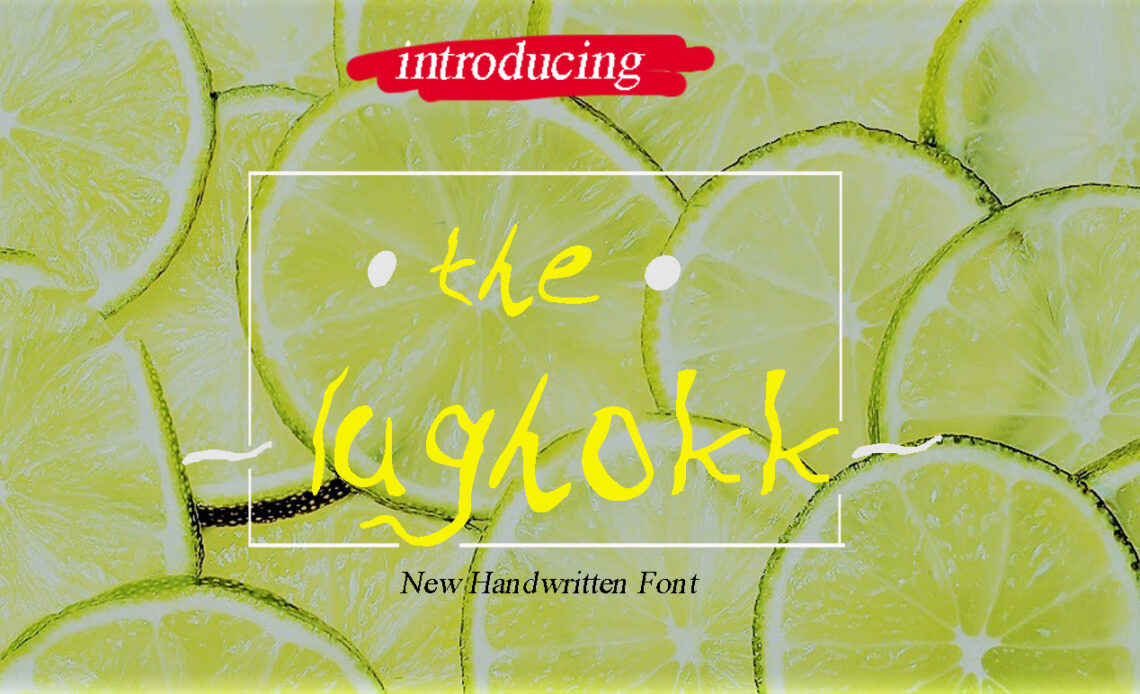
Introducing The Lughokk Font, the essential tool for designers seeking to captivate their audience with a touch of whimsy and authenticity. Crafted with meticulous care by the esteemed Farhanffuad, this enchanting script offers a refreshing escape from the mundane.
Unleash the power of personal expression with The Lughokk Font. Its playful and carefree nature invites you to infuse your designs with a sense of youthful exuberance. Perfect for headlines and display text, it commands attention while evoking a genuine connection with your readers.
Whether you're crafting invitations that exude warmth and charm or designing social media posts that spark delight, The Lughokk Font is your ultimate companion. Its versatility knows no bounds, adapting seamlessly to a wide range of design aesthetics.
Don't settle for ordinary fonts. Embrace the extraordinary with The Lughokk Font. Its ability to evoke emotions and create lasting impressions is simply unparalleled. Experience the freedom of creative expression and elevate your designs to new heights of originality.